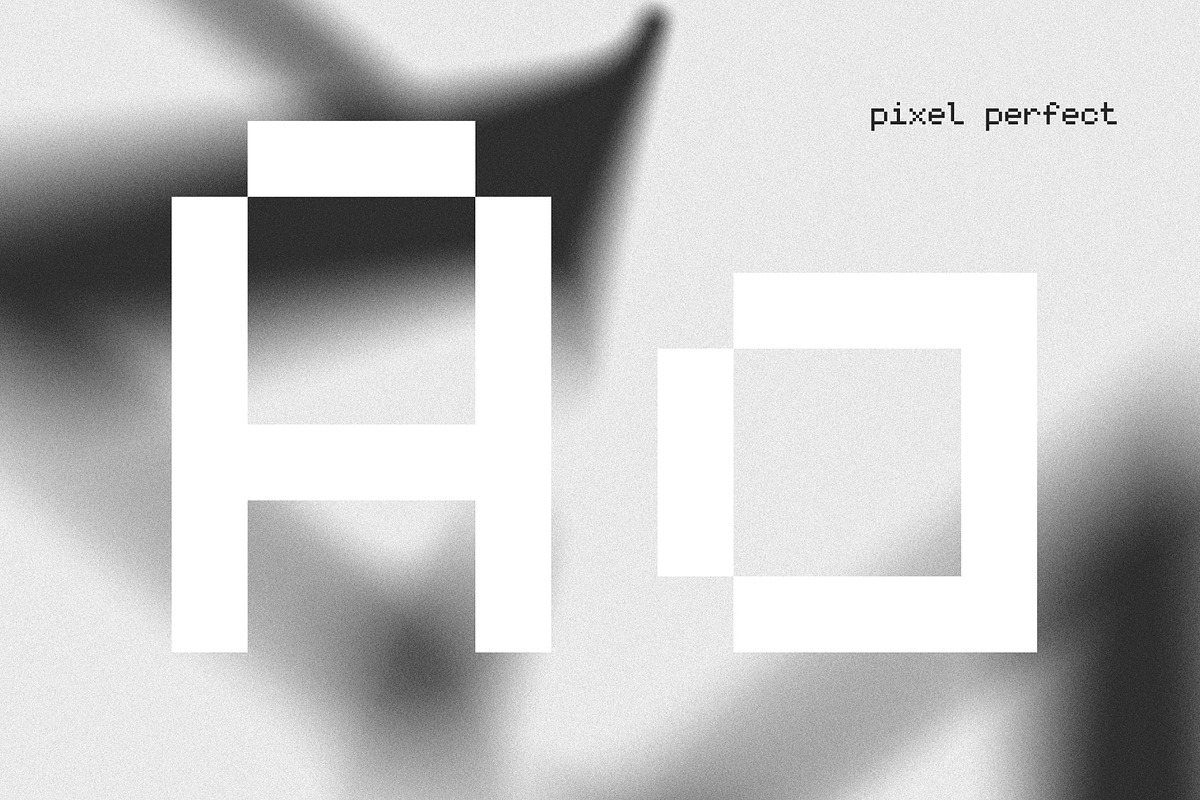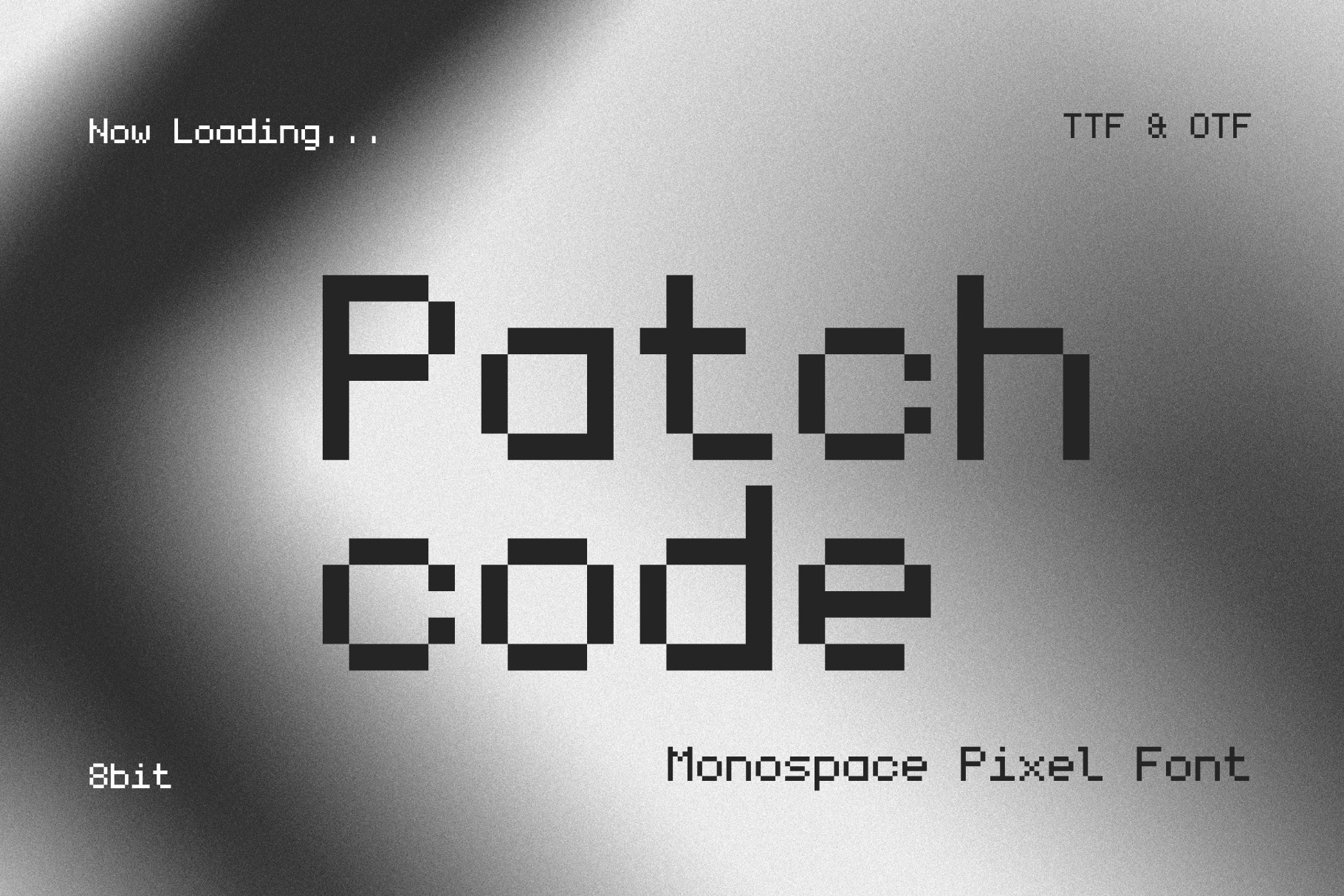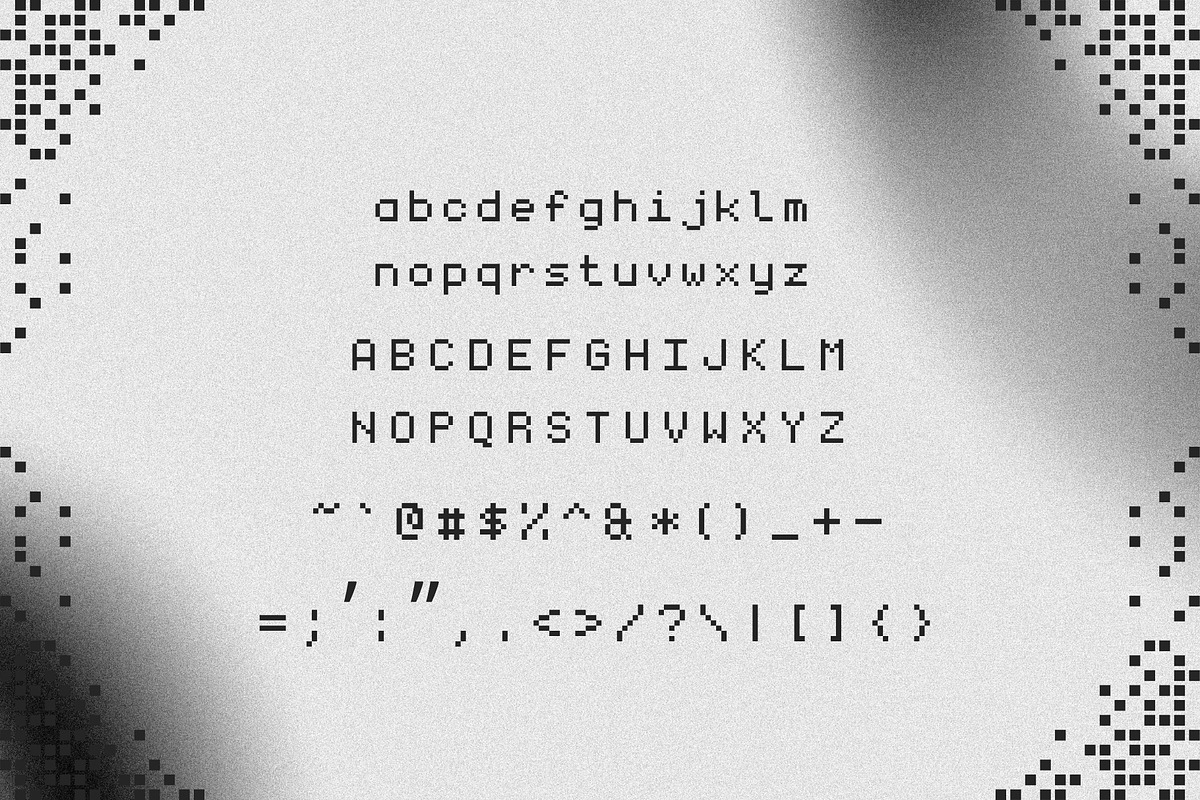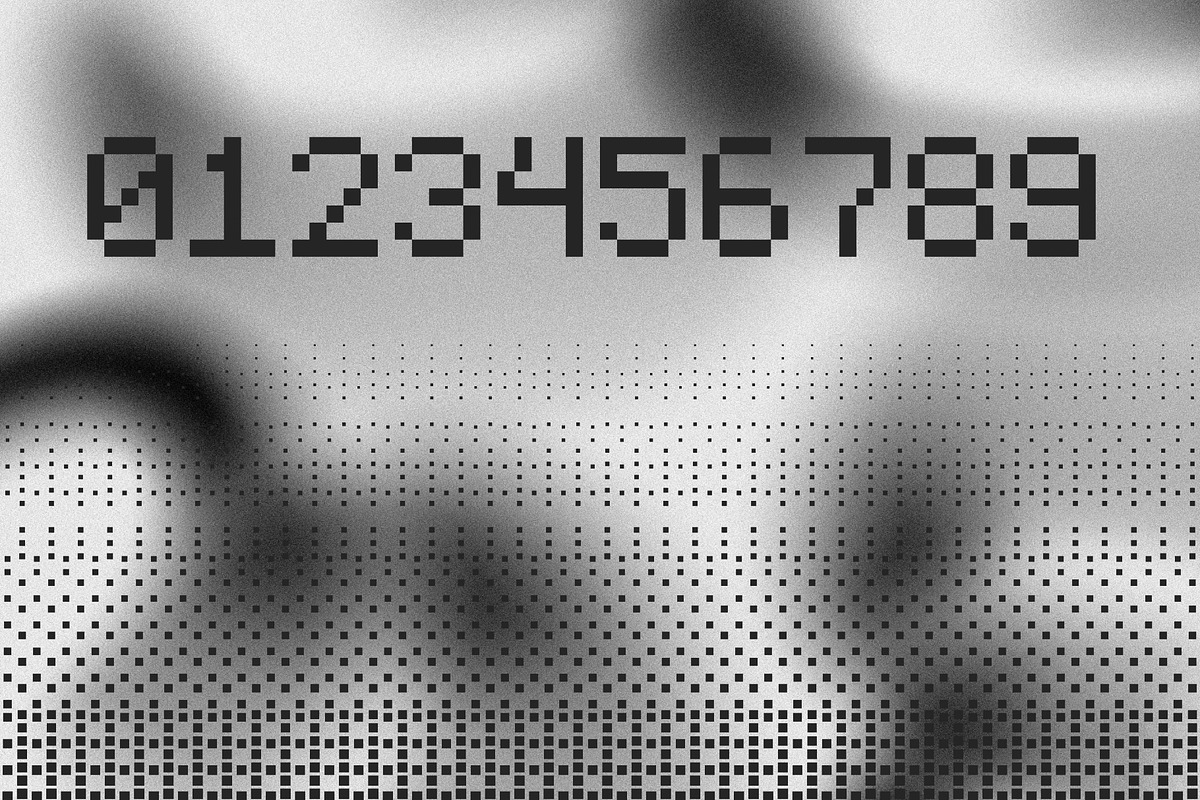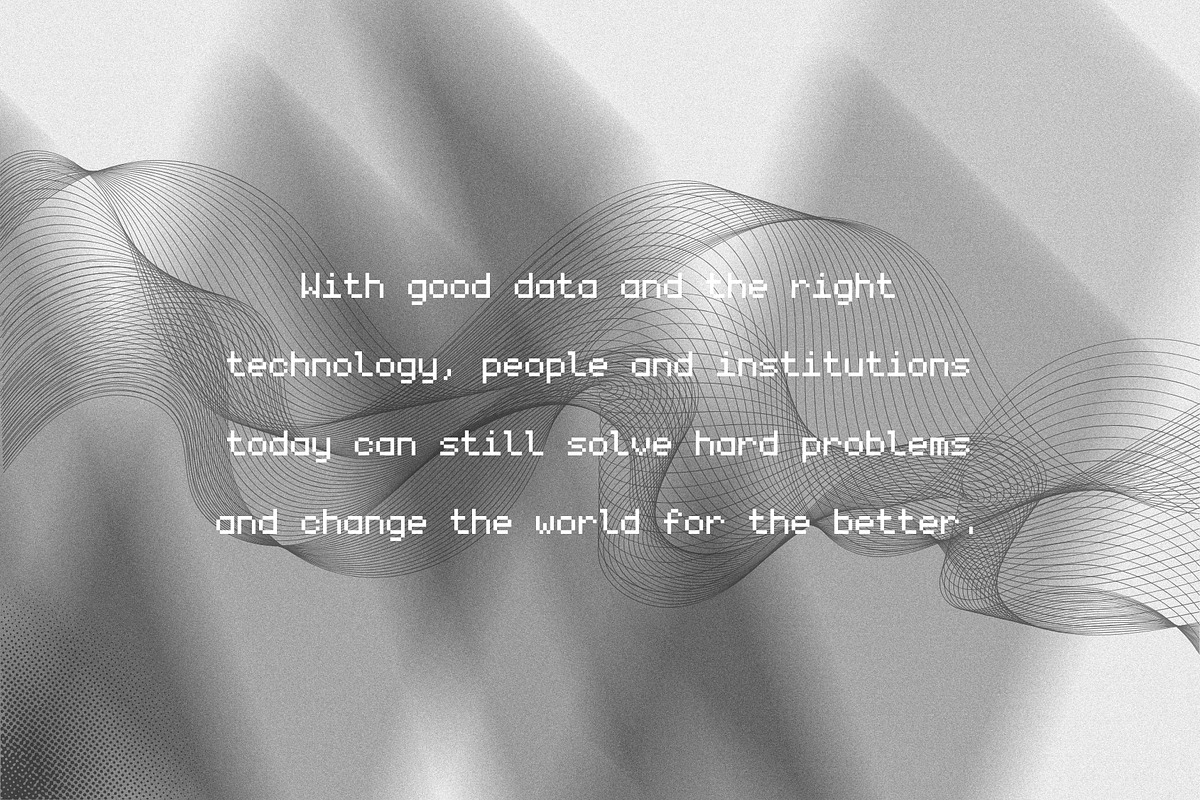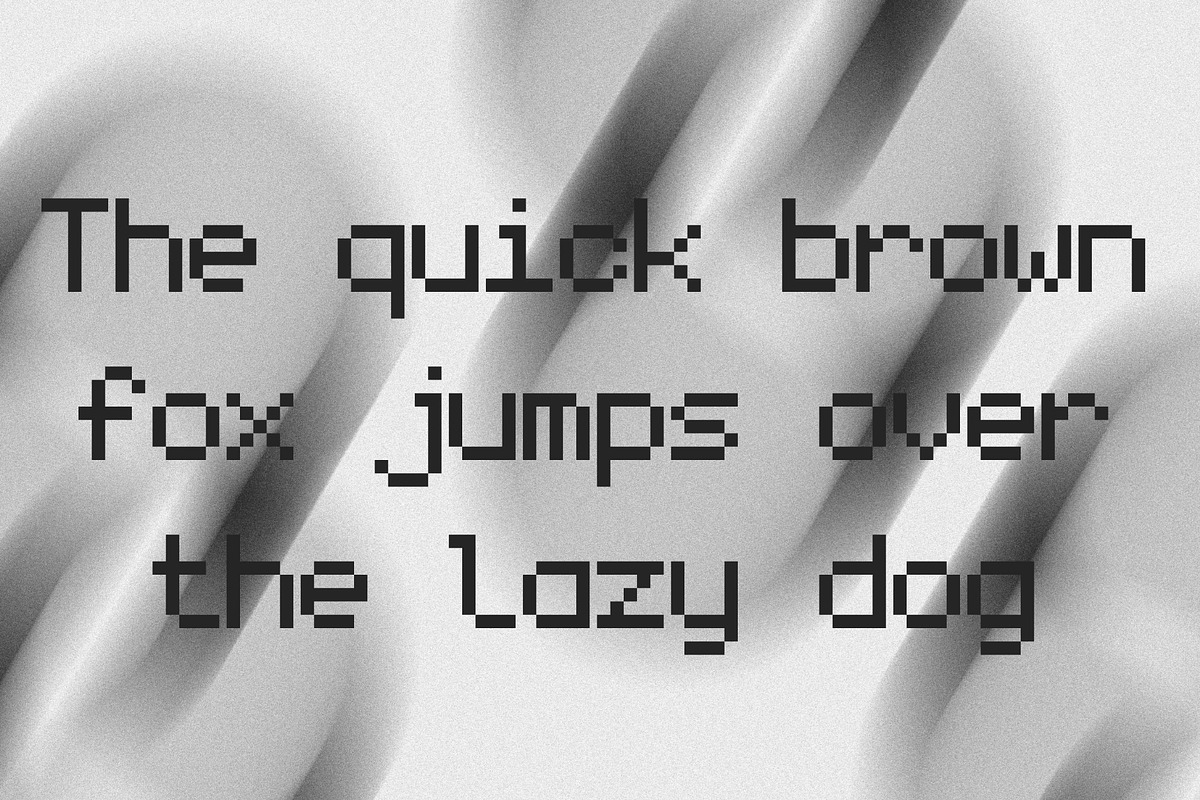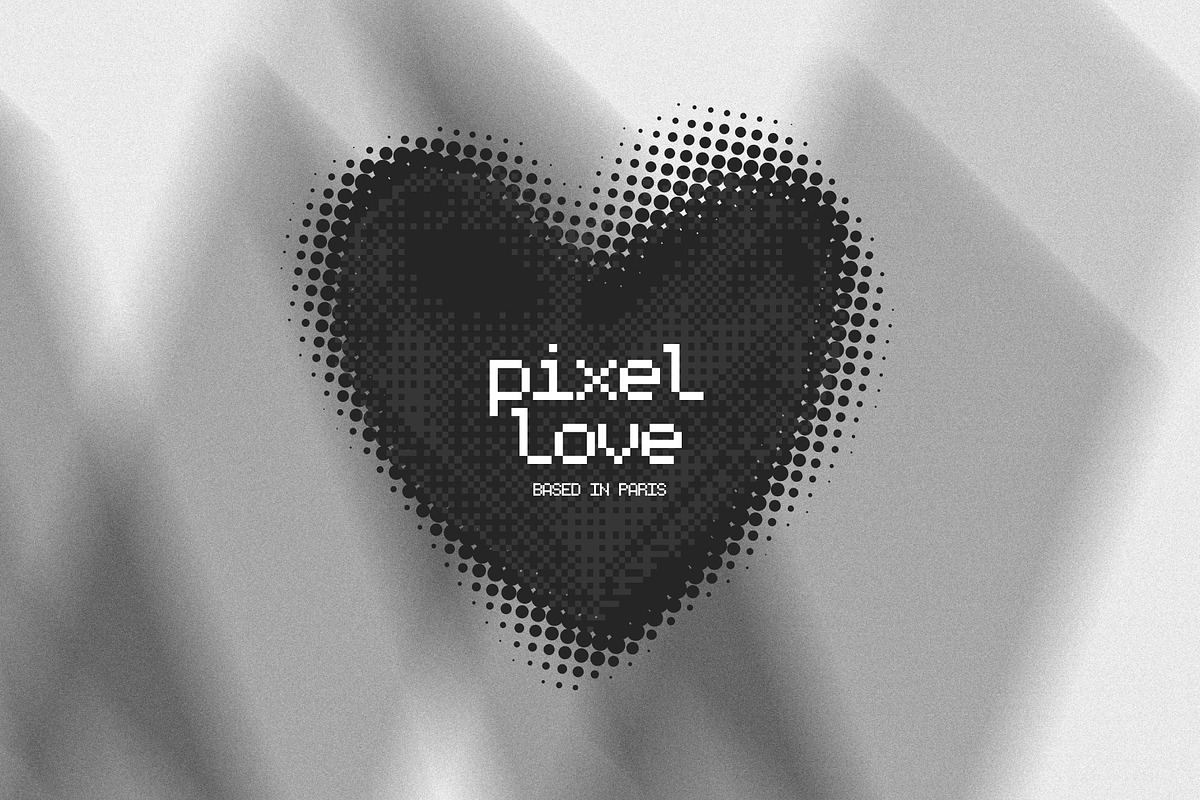
Patchcode - Monospace Computer Font
Meet Patchcode, a sharp monospace pixel font built for bold ideas, digital worlds, and retro-futuristic design. Inspired by classic computer terminals, early video games, bitmap graphics, and vintage arcade interfaces, Patchcode combines nostalgic pixel construction with a clean, modern personality.
Every character follows a consistent fixed-width structure, giving your typography a precise, rhythmic appearance that feels technical, organized, and unmistakably digital. Its blocky letterforms remain highly expressive, making Patchcode equally effective for compact interface text and oversized attention-grabbing headlines.
Patchcode is perfect for video game titles, arcade graphics, coding projects, developer branding, futuristic logos, technology posters, streaming graphics, esports designs, app interfaces, websites, merchandise, album artwork, social media content, and pixel-inspired packaging.
Whether you are building a nostalgic 8-bit universe, designing a modern technology brand, or creating visuals that feel straight out of a command-line terminal, Patchcode gives every project a distinctive digital voice.